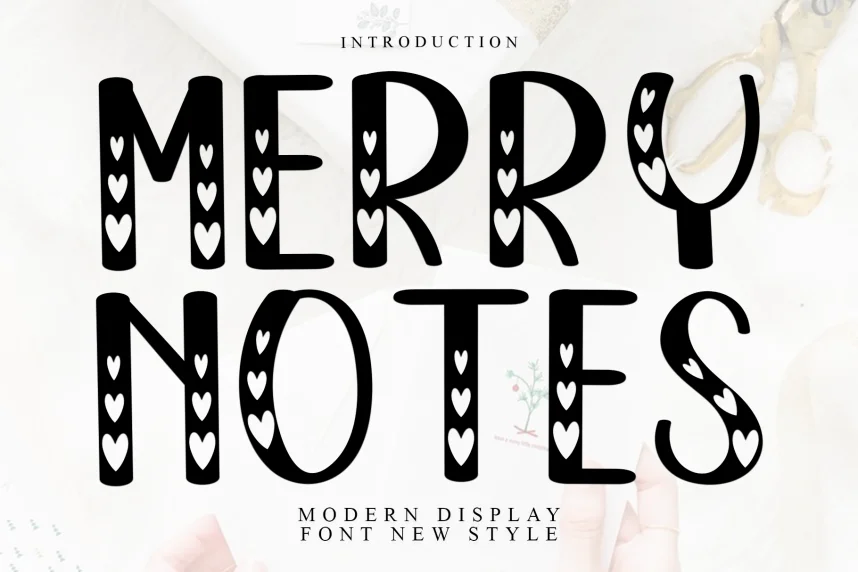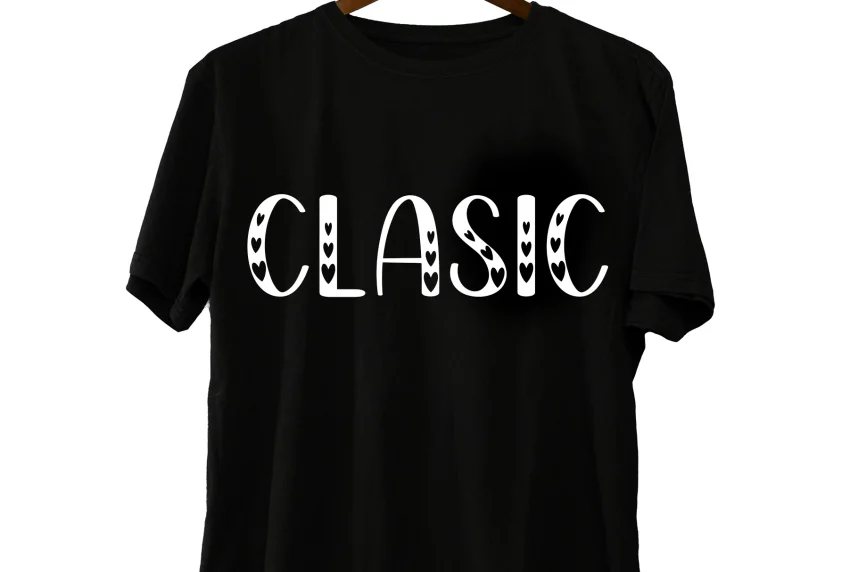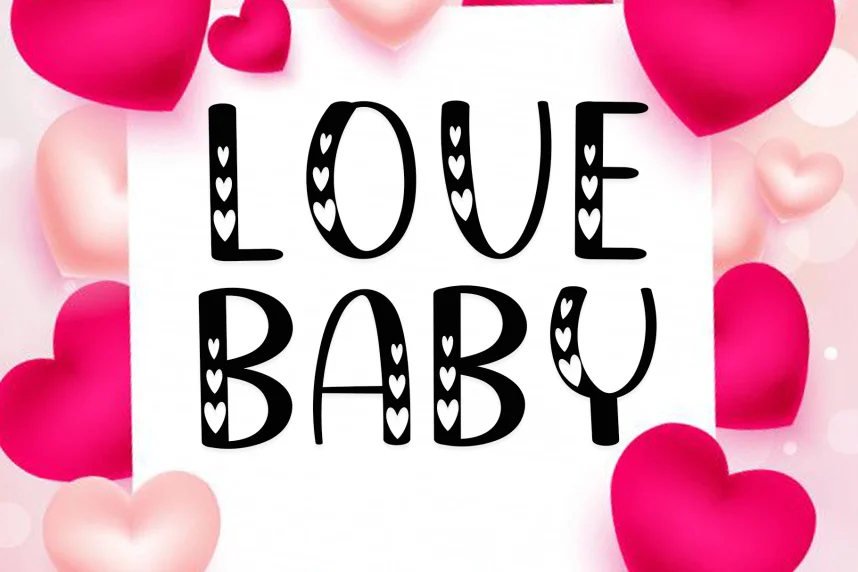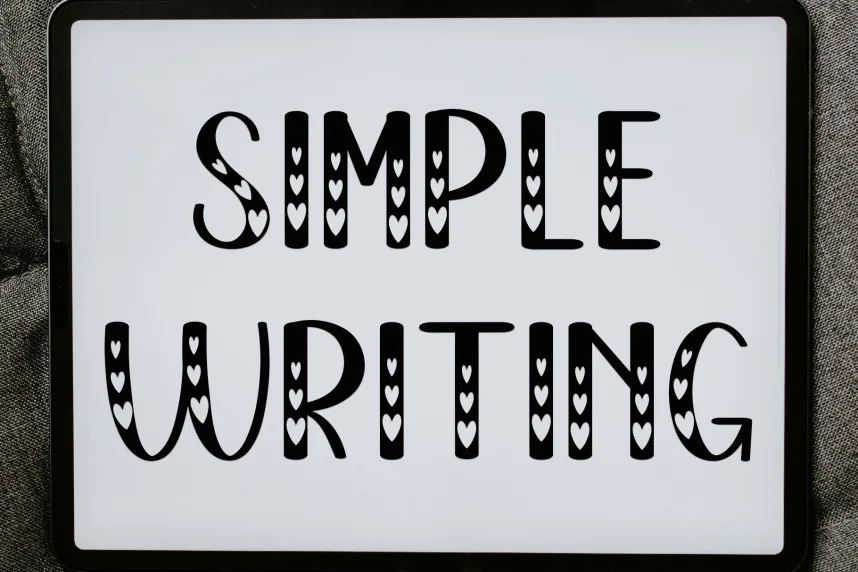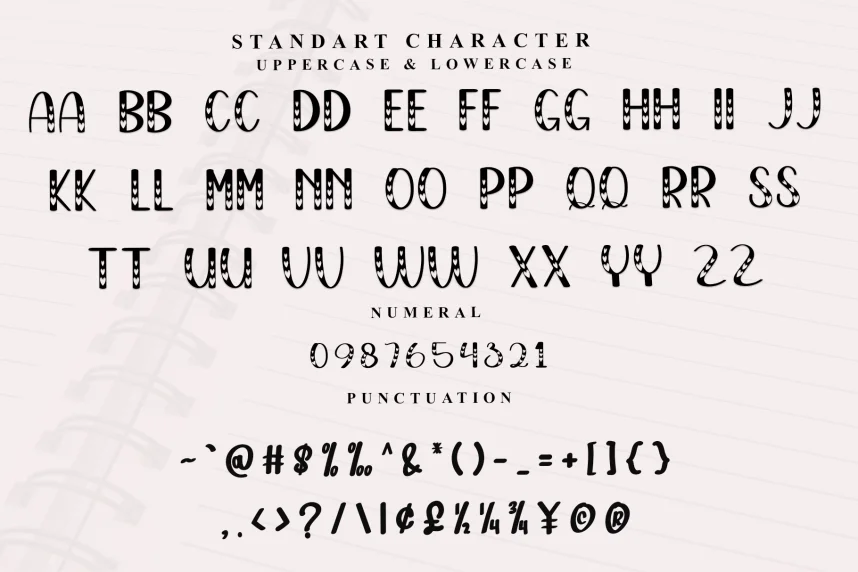
Merry Notes – Playful And Unique Font addresses the need for whimsical, handwritten typography that brings holiday cheer to your designs. It works especially well for projects that need a lighthearted, festive touch.
Merry Notes is a script font with irregular, flowing strokes and exaggerated letterforms, giving it a handwritten, joyful feel. The font is playful yet legible, making it suitable for short phrases, titles, and greeting cards.